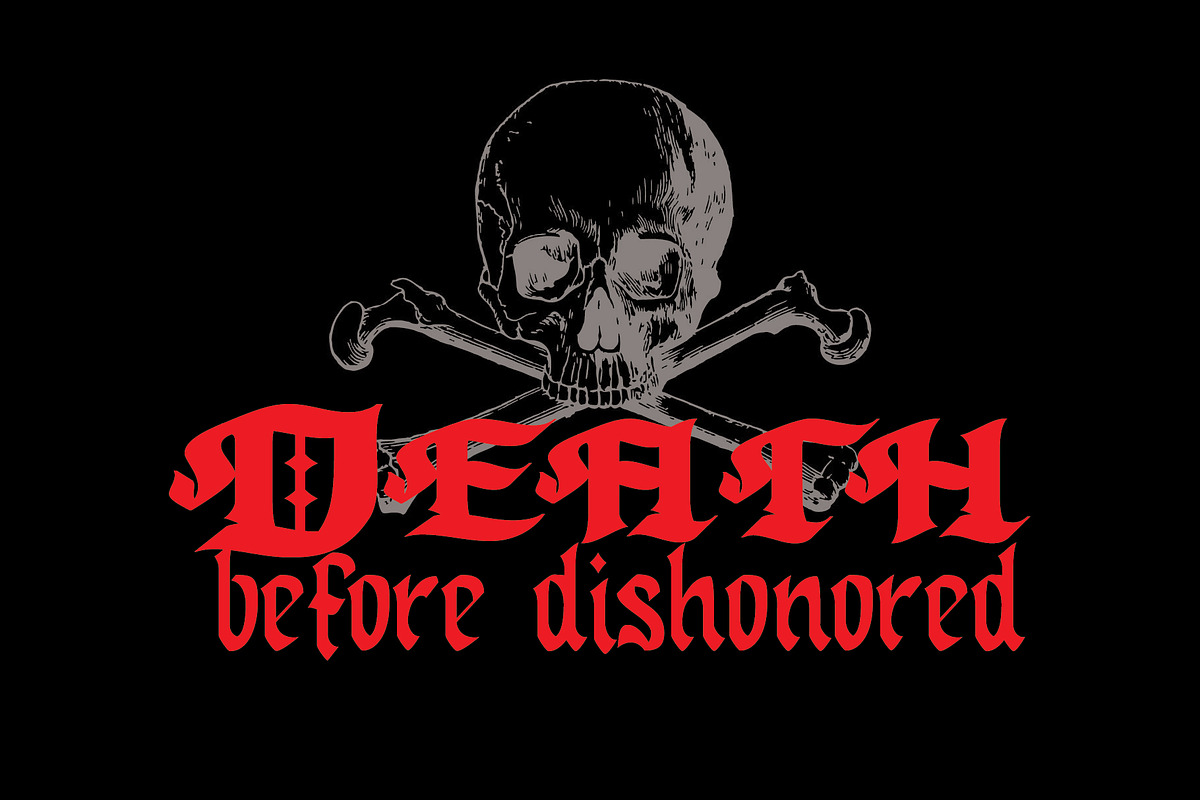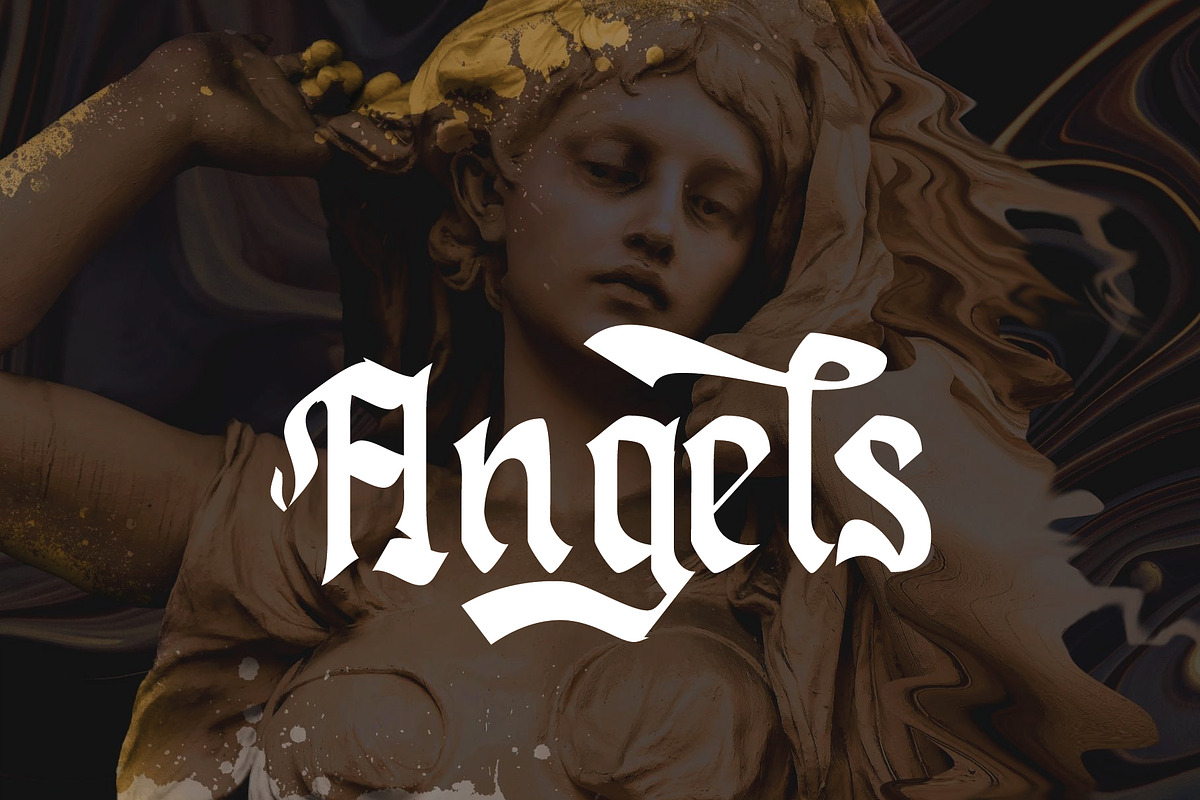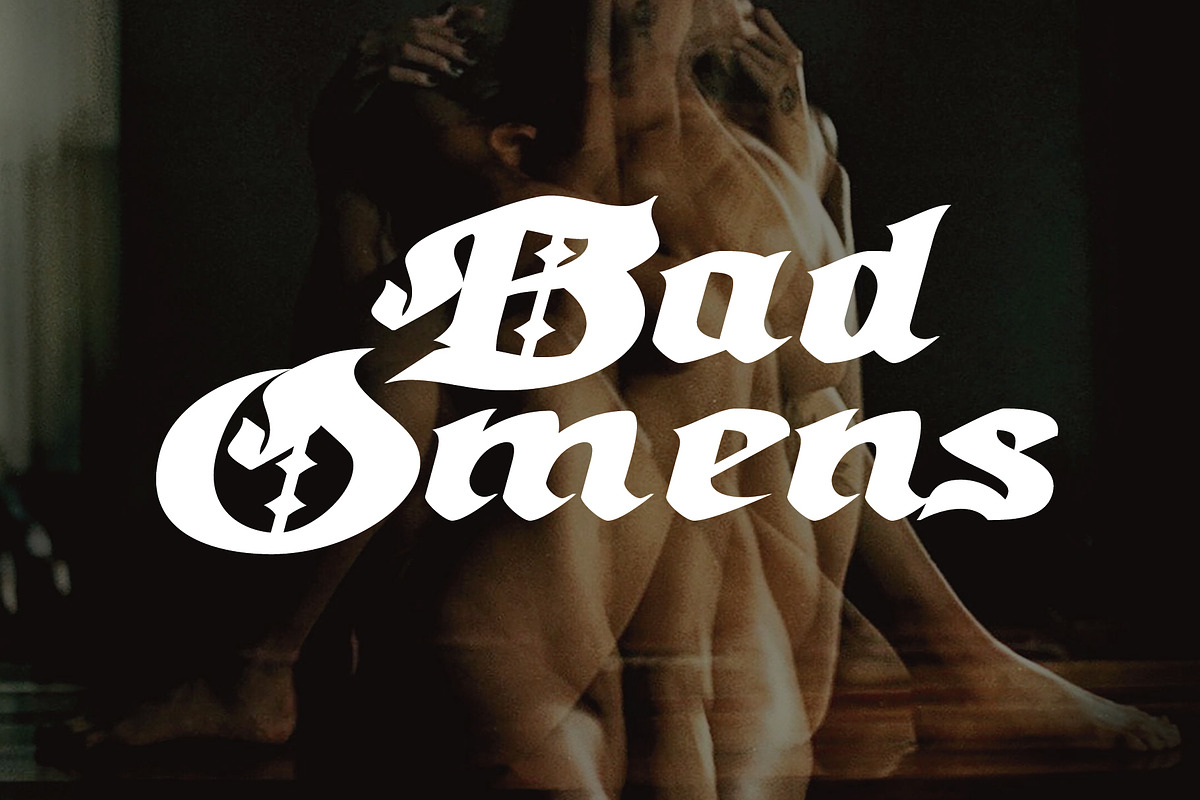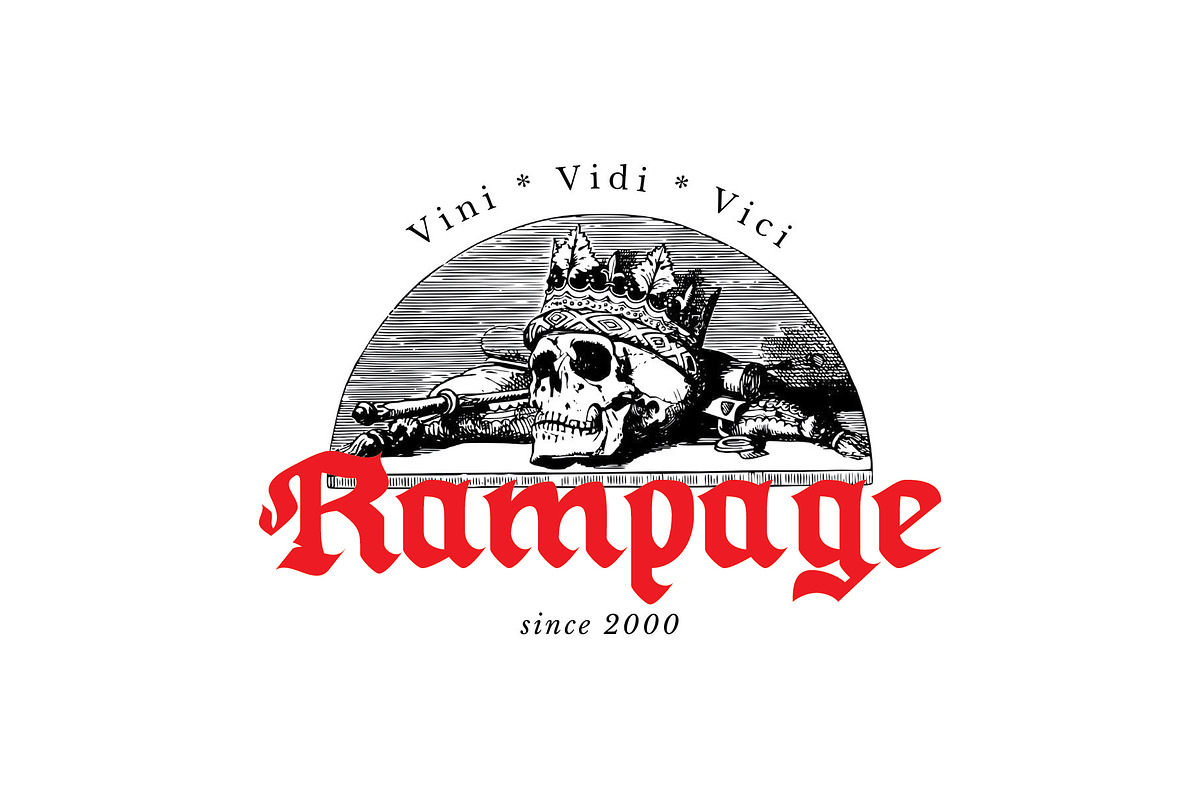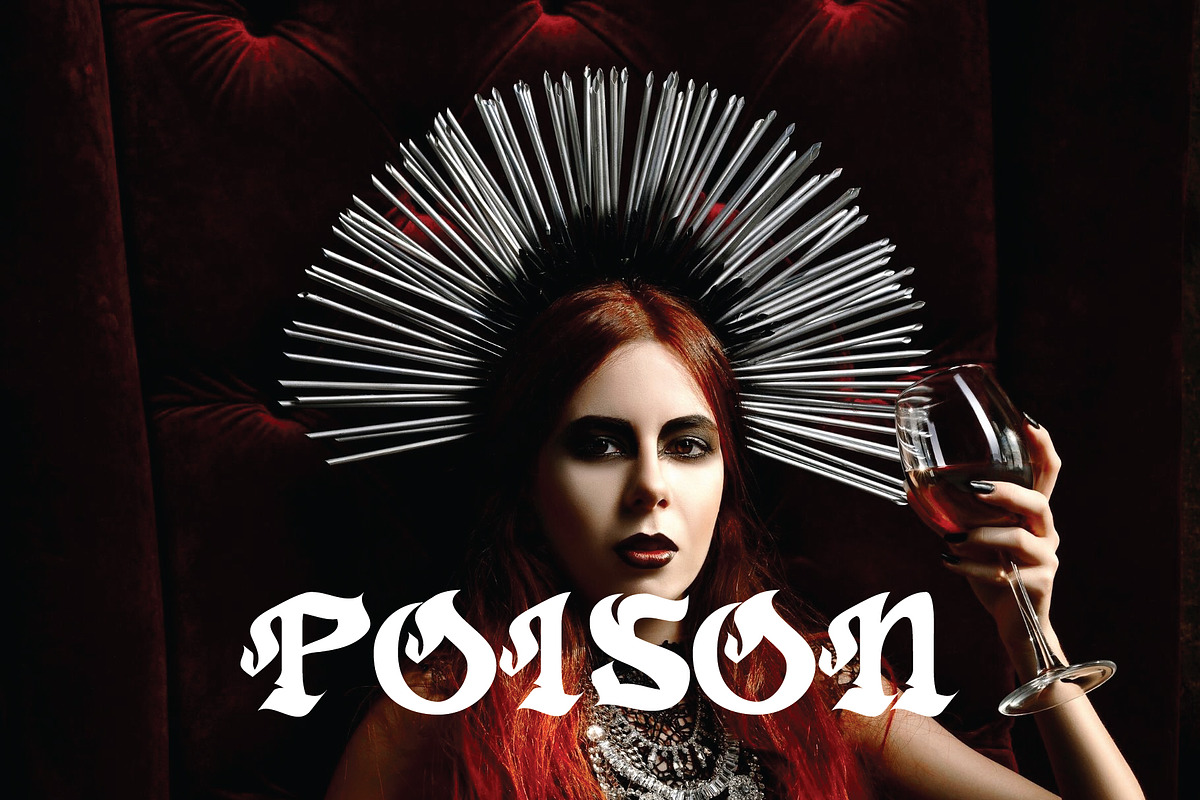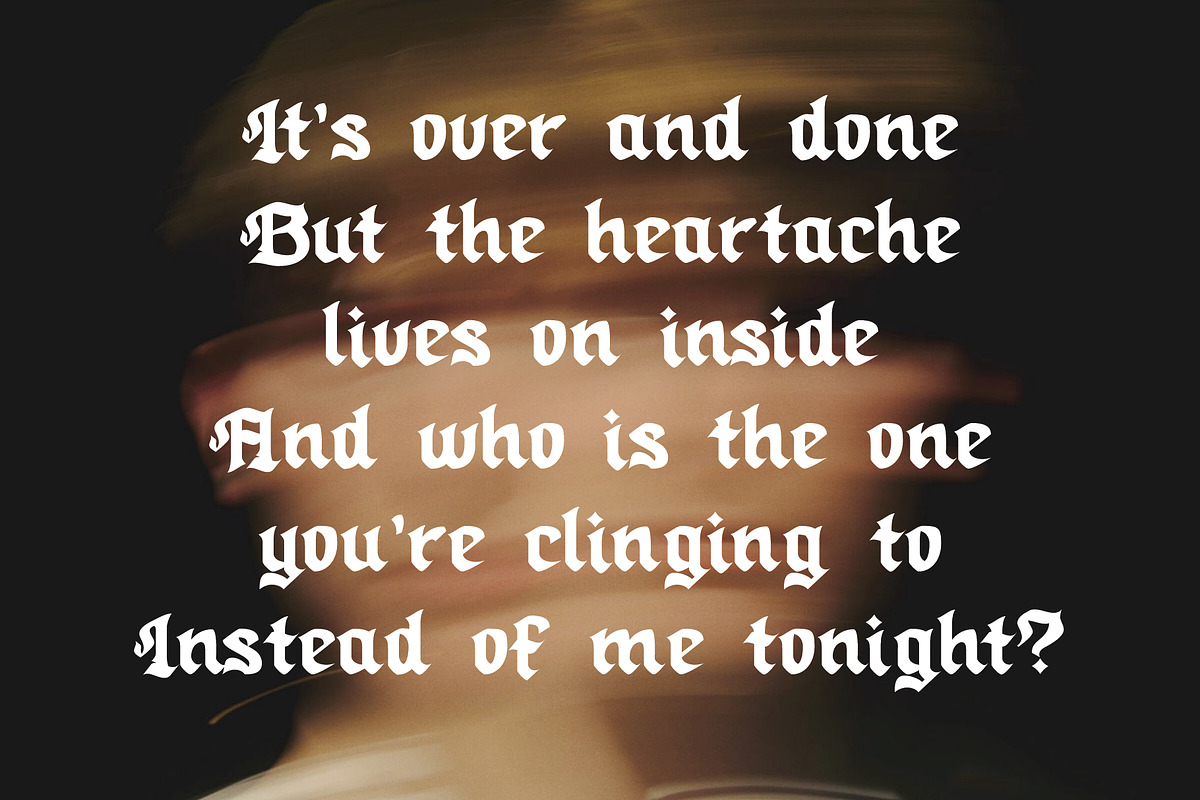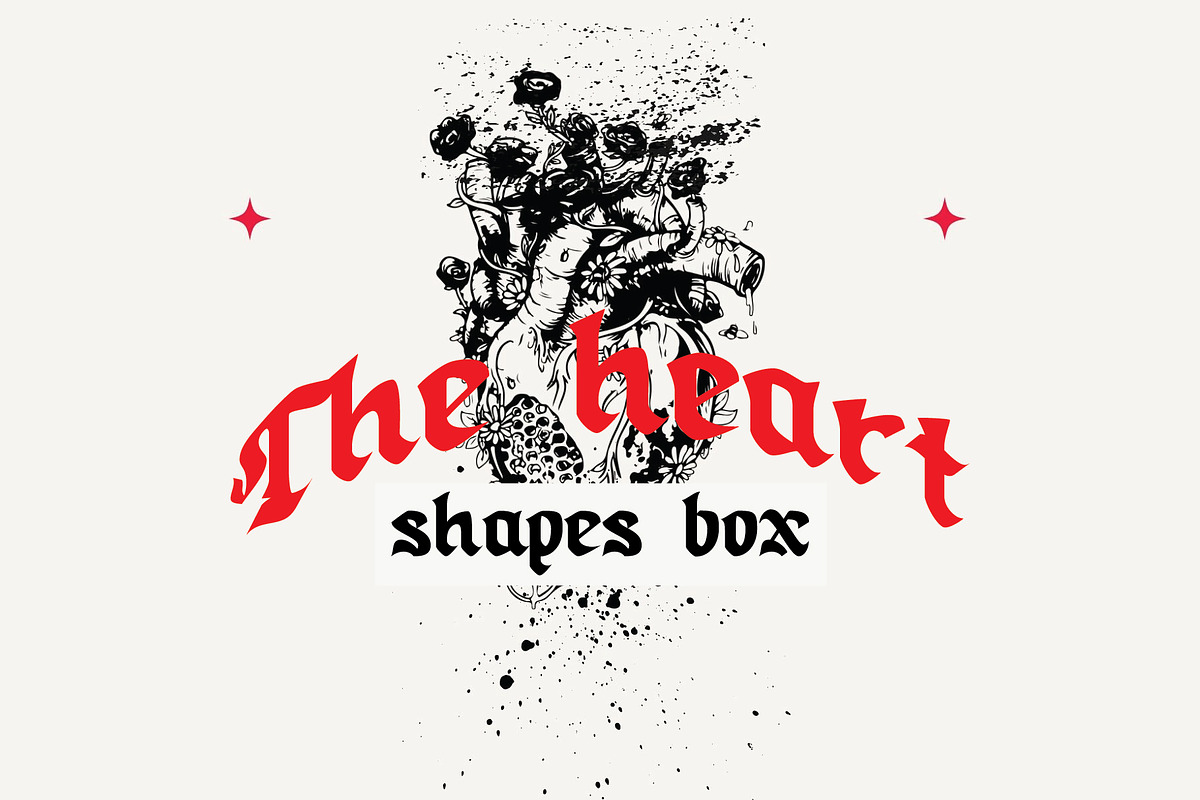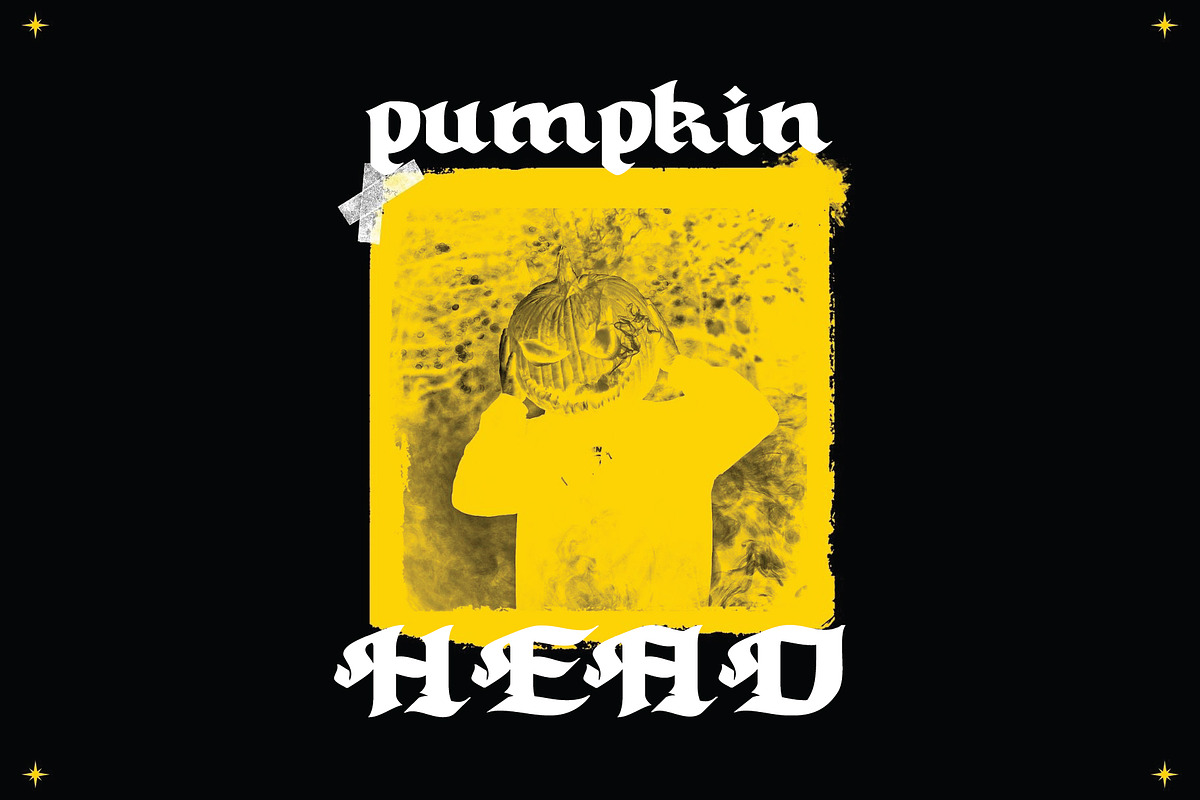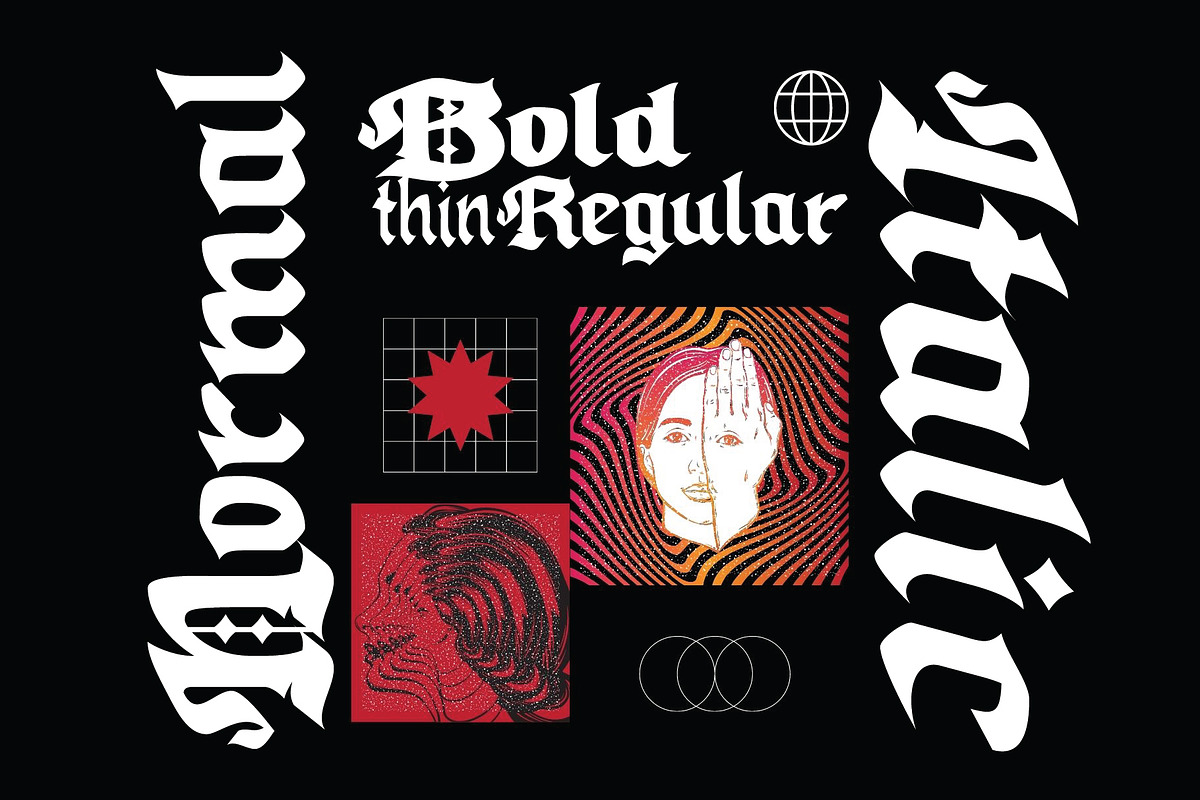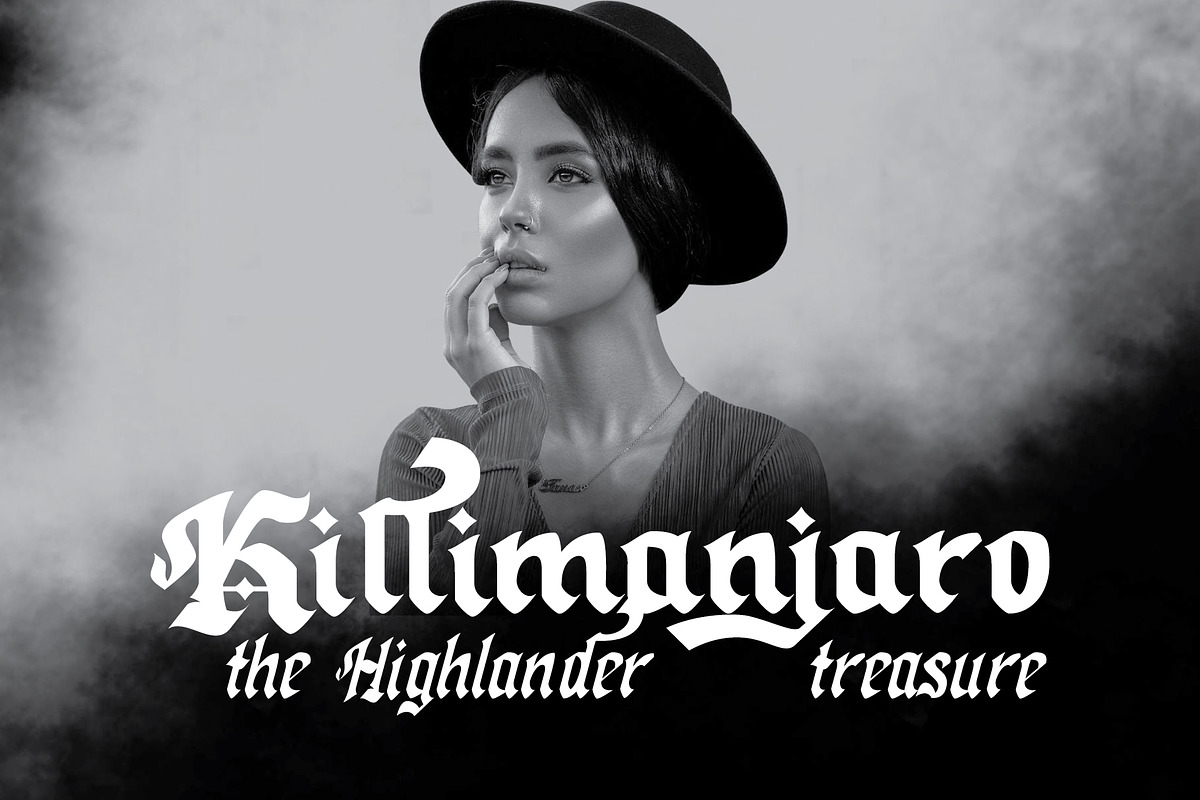
Callimathy - Gothic Blackletter
Introducing the Callimathy-Gothic Blackletter Font Style, the ultimate digital font for all your gothic and medieval-inspired designs. This font is perfect for creating a dramatic and mysterious look in any project. Whether you're working on a website, presentation, or graphic design project, Callimathy-Gothic Blackletter Font Style will add a touch of dark elegance to your design.
The Callimathy-Gothic Blackletter Font Style is a versatile font that can be used for various design projects, such as:
- Medieval and gothic-inspired designs like book covers, posters, and invitations.
- Horror and mystery-related designs like movies, games, and books.
- Vintage and retro-inspired designs like posters, billboards, and advertising.
- Branding, packaging, and logo designs for dark-themed products or services
The Callimathy-Gothic Blackletter Font Style is designed with a gothic and mysterious style, making it perfect for adding a sense of drama and elegance to your designs. This font is also fully customizable, allowing you to adjust the size, spacing, and color to fit your design needs. With Callimathy-Gothic Blackletter Font Style, you'll have access to a professional-quality font that will give your designs a gothic and mysterious look.